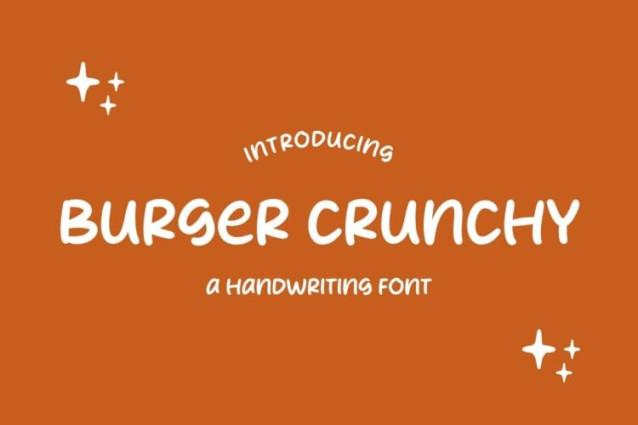
Burger Crunchy Font
Burger Crunchy Font is a simple and friendly handwritten font. Its natural and unique style makes it incredibly fitting to a large pool of designs. The only limit is your imagination!